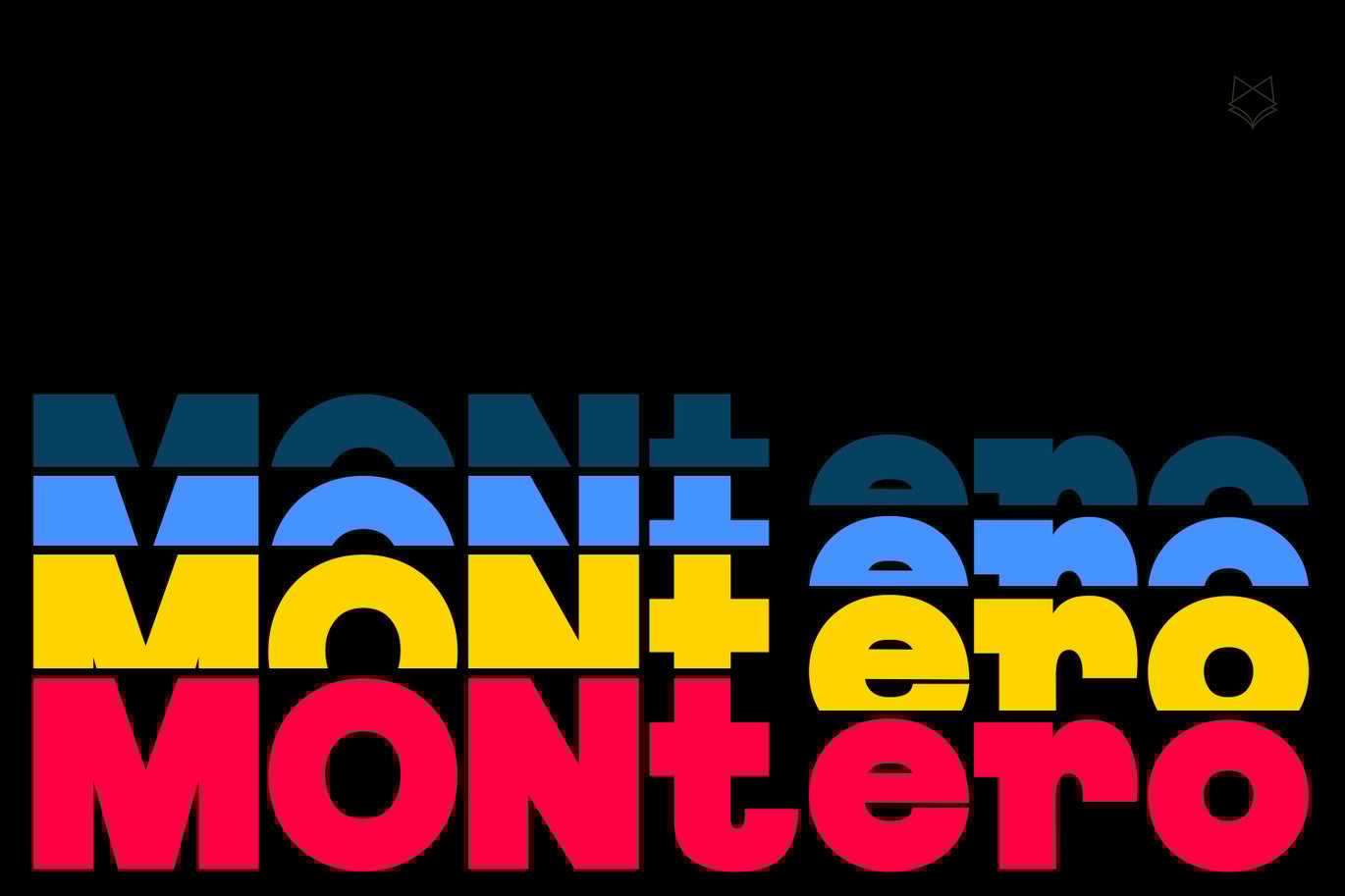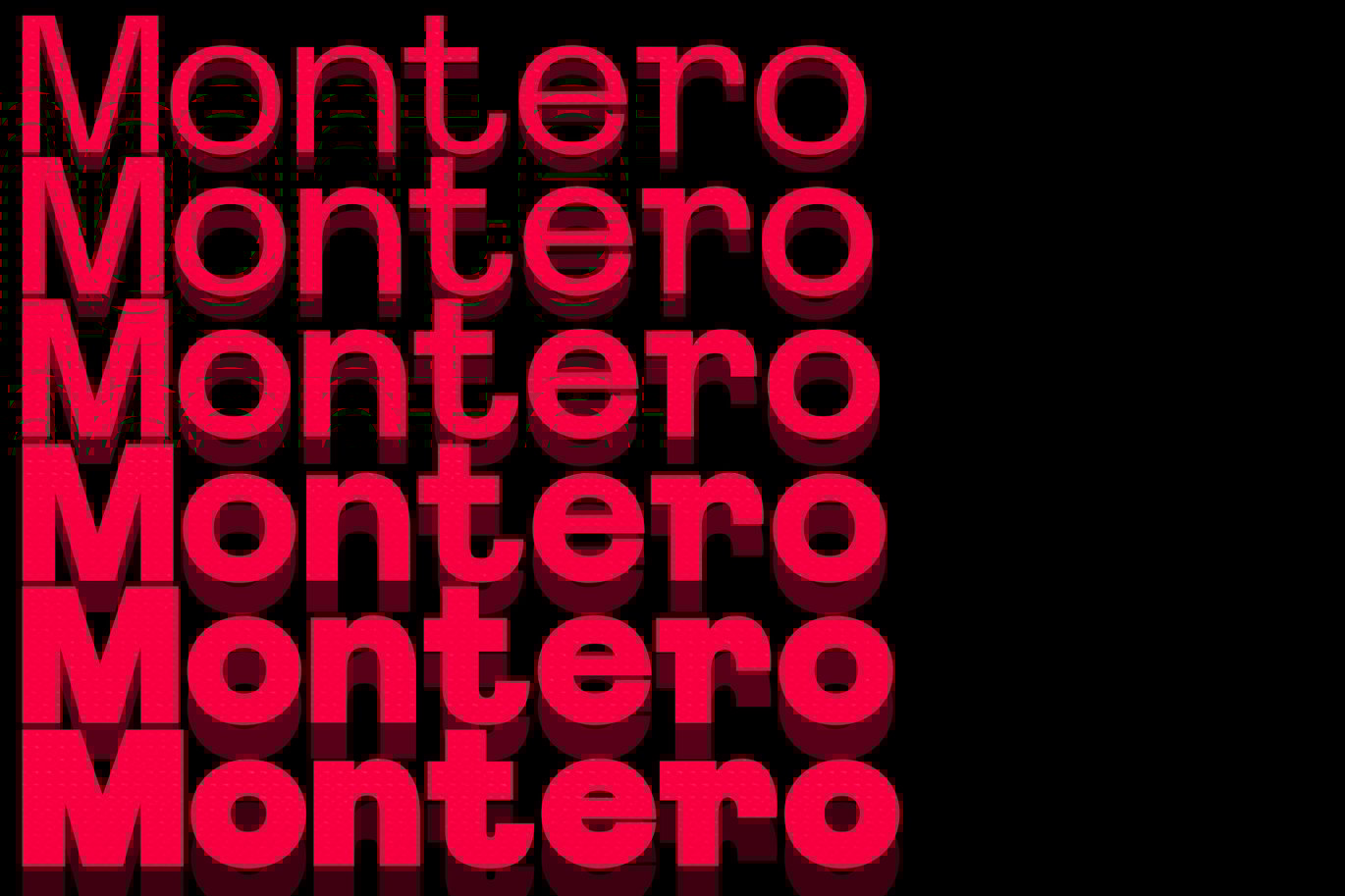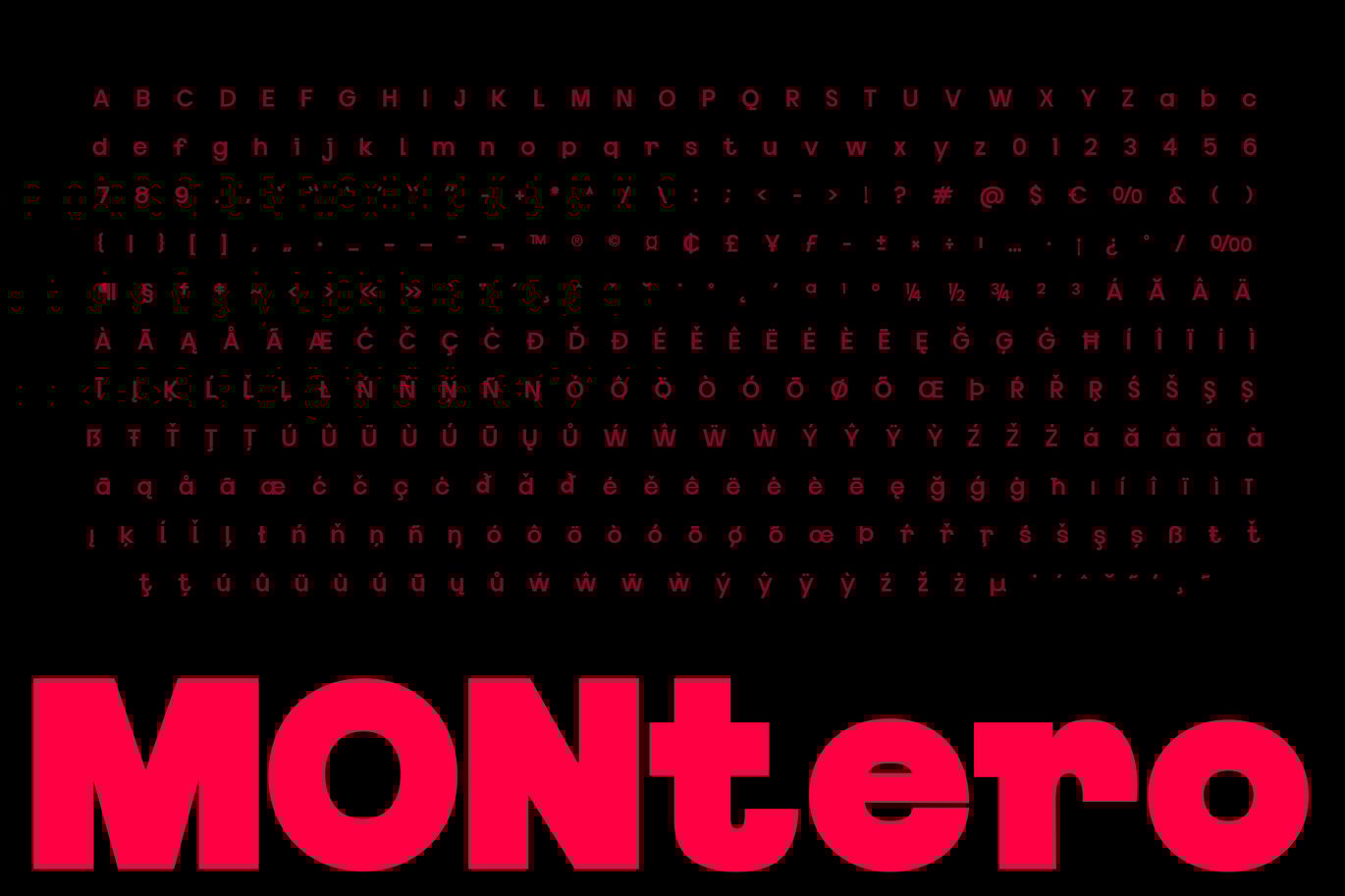
Montero Display Typeface
Montero Display is a Brand New Luxury Typeface with a powerful font family. It has a dependable and uncompromising style, with controlled letterforms and modern touches. It looks amazing in logos, magazines, and movies . Montero Font would be perfect for branding, headlines, Captions, paragraph, and posters . The various weights allow you to experiment with a wide range of applications. It’s created to make an impression without sacrificing its beauty and readability. It’s shown a clean, minimalist, warmth, quirky, yet still purposed to be versatile
The Typeface includes Six Weights – Regular, Medium, SemiBold, Bold, ExtraBold, and Black. All offer wide language support, upper and lower cases, numerals and extended punctuation.